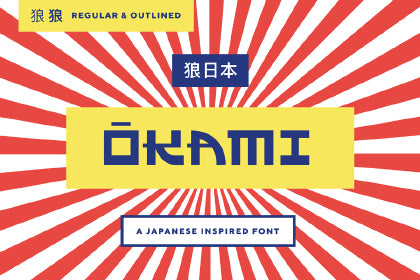
Free Okami Outline Font
Featuring a free okami outline font. Free Design Resources has created this amazing and beautiful font. This is absolutely fancy font so you can easily make world-class designs.